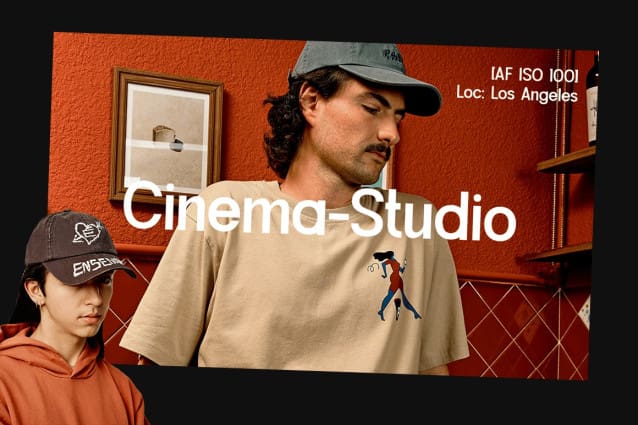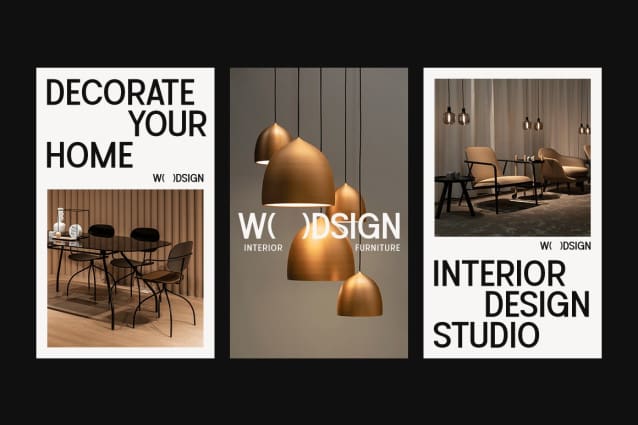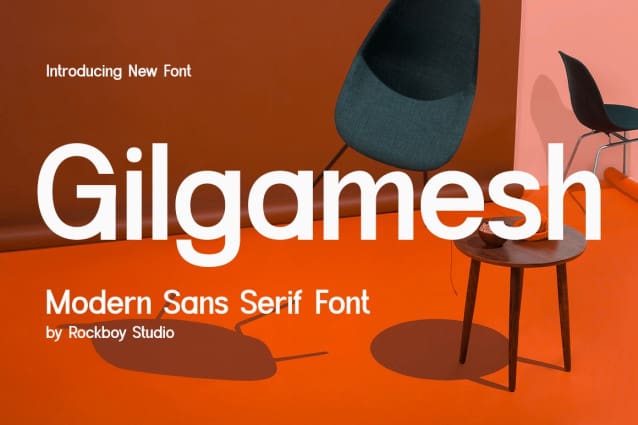
Gilgamesh Font
Gilgamesh Font is a minimalistic and modern sans serif font. It can easily be combined with a huge number of projects, so add it to your creative ideas and notice how it makes them stand out!